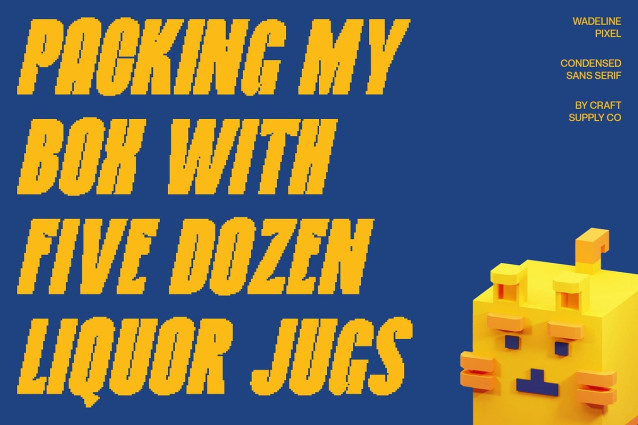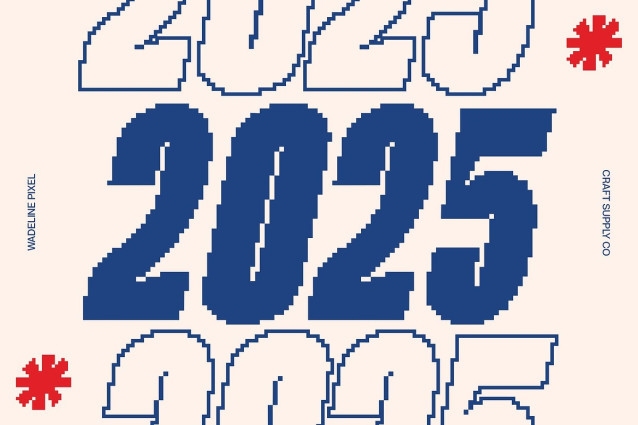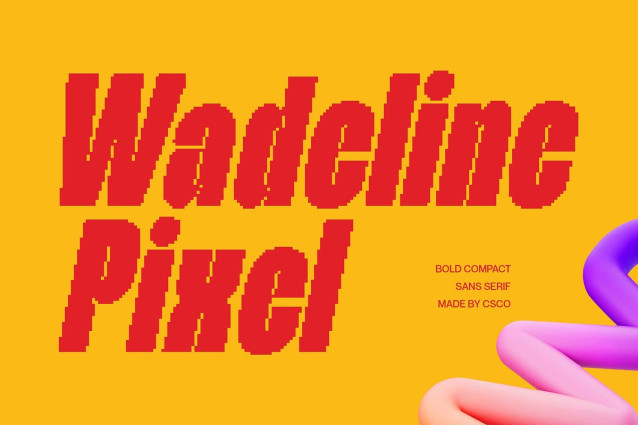
Wadeline Pixel Font
Wadeline Pixel Font – Compact Power with a Digital Edge: Condensed Sans Serif with Pixel Character Bold Impact in Tight Spaces This is designed as a condensed sans serif font that makes every letter count. Its narrow proportions maximize space efficiency while still maintaining strong visual presence, making it ideal for tight layouts, striking headlines, and impactful posters. Pixel Character for Artistic Uniqueness What sets font apart is its pixel-inspired detailing. The subtle block-like texture adds a creative, digital twist to its otherwise modern form. This combination of clarity and artistic personality makes it suitable for projects that need both structure and individuality. Balancing Readability with Boldness Despite its compact design, delivers excellent readability. The clean sans serif structure provides balance against the bold pixel effect, ensuring that the font remains versatile for both professional and experimental applications. Perfect for Branding and Creative Layouts From posters and branding to editorial visuals, thrives in projects that require efficiency and impact. Its condensed shape and pixel artistry bring a fresh, contemporary look to any design, blending modern functionality with digital-inspired creativity. Download Type Speciment: — What you get : – Wadeline Pixel Regular – Wadeline Pixel Outline Features : – Uppercase and lowercase characters – Numerals and Punctuation (OpenType Standard) – Accents (Supports Multilingual Characters) – PUA Encoding — You can use this typeface without needing any specialized software. — If you have any inquiries or need assistance, please feel free to contact us. We appreciate your support in enhancing your creative projects! Best regards, Craft Supply Co.